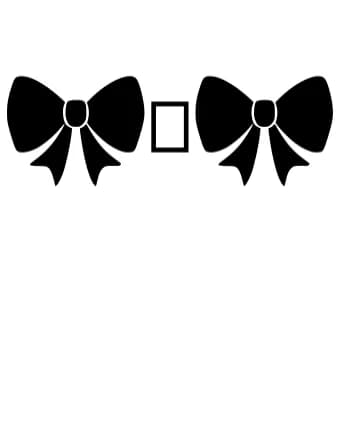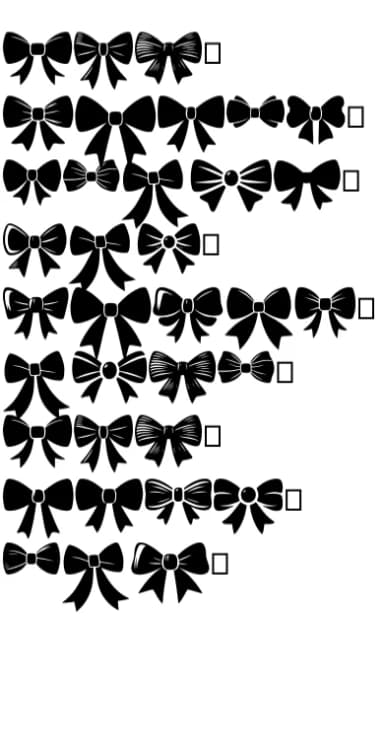
Bow Tie from Eystore presents a collection of refined bow tie and ribbon motifs rendered as standalone dingbats. Each character captures the geometry of a classic knot and elegant drape in isolated, vector-ready forms. These marks scale cleanly from large signage applications down to small embedded accents within layouts.
What makes this font practical is how it functions as a unified symbol system rather than random decoration. When you need repeated motifs tied to a specific visual identity, hunting through fragmented image libraries becomes unnecessary. Bow Tie keeps everything in one file with consistent construction and weight. Monogram stickers for boutique product lines, elegant wedding invitation suites, and personalized gift tag designs all benefit from having a cohesive motif language. Embroidery digitizers and apparel tag designers appreciate how the isolated glyphs scale cleanly to patch sizes. Fashion brands often use symbol sets like this for lookbook covers, social media graphics, and boutique packaging where a signature mark system signals intentionality rather than generic filler.
This refined aesthetic works best for projects leaning upscale and fashion-forward. Personalized stationery, boutique retail campaigns, and designer merchandise labels gain the most from this collection. Find Bow Tie on Creative Fabrica and add this versatile symbol set to your creative toolkit.
Bow Tie Font